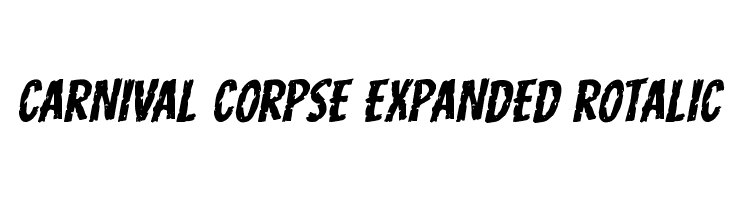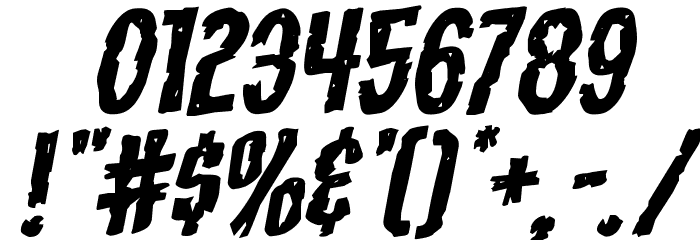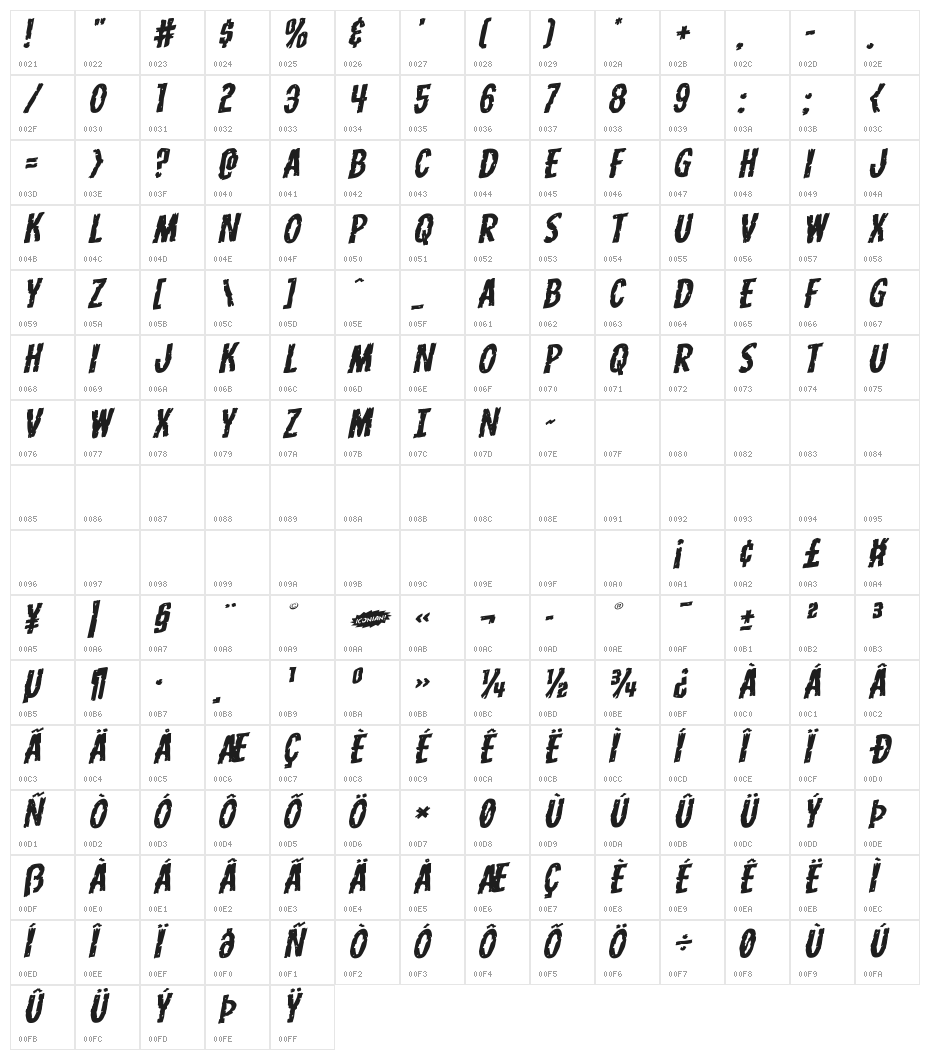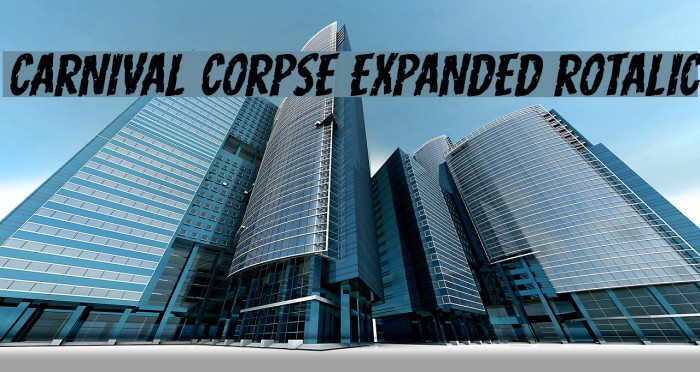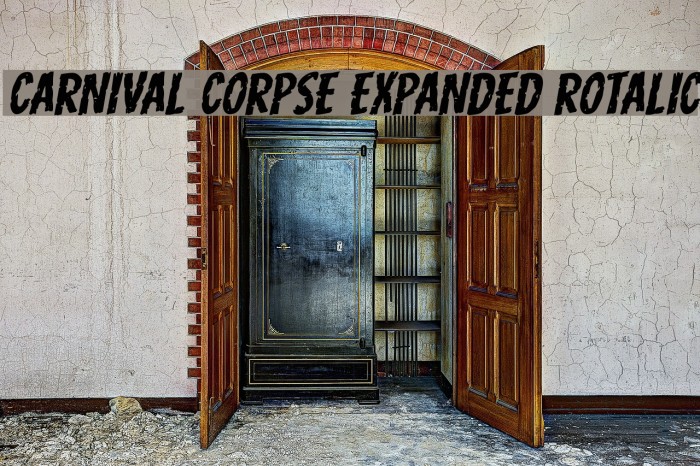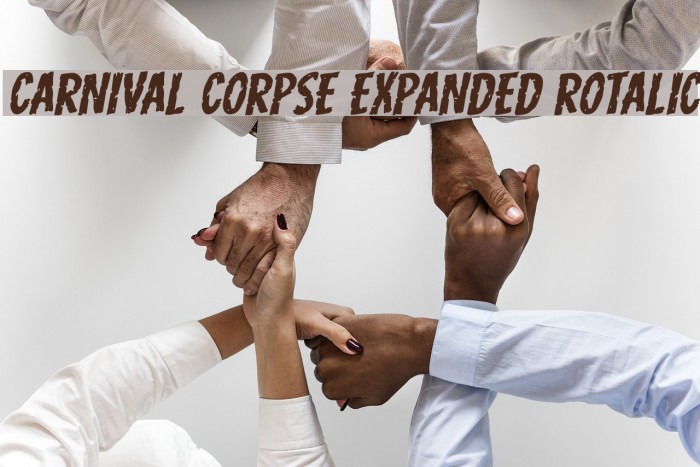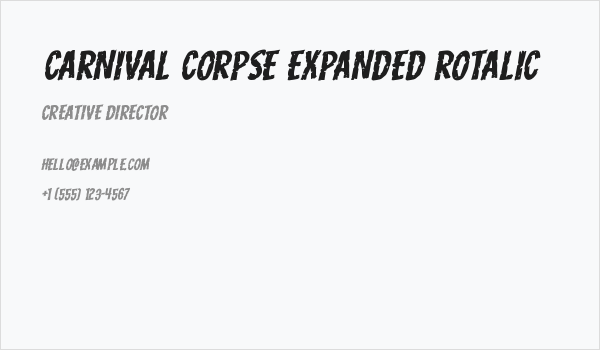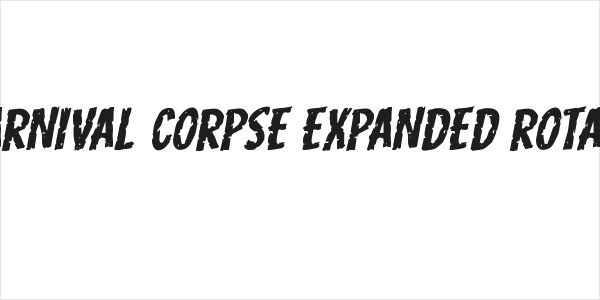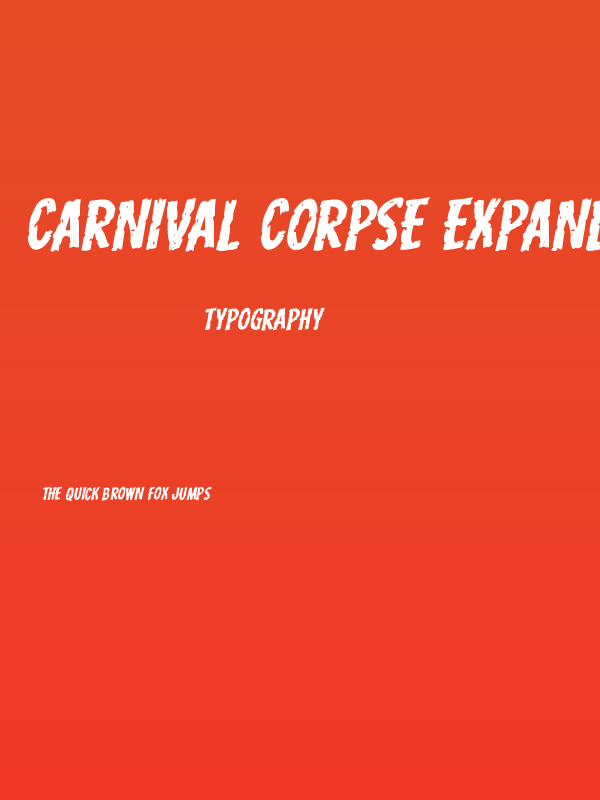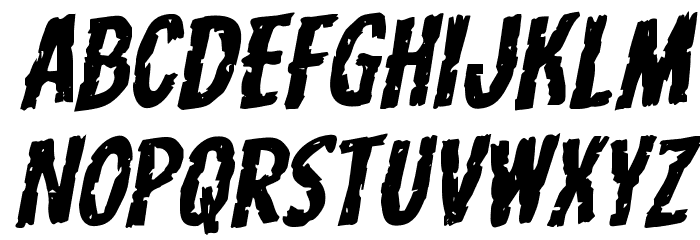
Carnival Corpse Expanded Rotalic Font
Carnival Corpse Expanded Rotalic Description
This font features a bold and dynamic style with a distressed, grunge-like texture that gives it a rugged, edgy appearance. The characters are expanded and italicized, creating a sense of movement and urgency. Each letter and number is uniquely crafted with irregular edges and a slightly chaotic feel, making it ideal for projects that require a strong, impactful visual statement. The font's rough texture and bold presence make it stand out, capturing attention with its unconventional and artistic flair.
Proposed ProjectsIdeal for music album covers, horror movie posters, edgy branding, and streetwear designs.